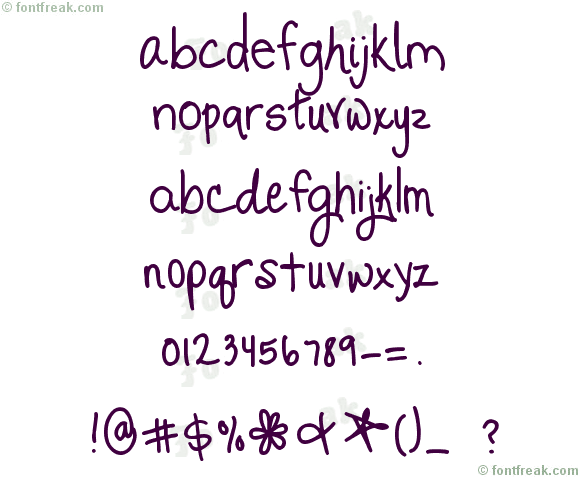
Promised Freedom is a charming handwritten font designed by Kimberly Geswein, categorized under script typefaces. This font is characterized by its playful strokes, combining a light and airy feel with a touch of elegance. The stroke weight is moderately varied, lending a dynamic quality that enhances its handwritten appearance. The characters exhibit natural spacing, making it easy to read while retaining a personal touch. This typeface is devoid of excessive decorative elements, allowing it to maintain clarity and legibility, which is crucial for effective communication.
Ideal for a range of creative projects, Promised Freedom shines in applications such as wedding invitations, where its romantic flair can add a personal touch to special occasions. It works beautifully for greeting cards, allowing users to convey heartfelt messages in a unique style. Additionally, its casual elegance makes it suitable for restaurant menus, creating an inviting atmosphere for diners. Graphic designers will find this font particularly appealing for branding projects, where a friendly and approachable image is desired. Content creators can also leverage Promised Freedom for social media graphics, enhancing engagement through its personable aesthetic.
The target audience for this font includes graphic designers, small business owners, and content creators who seek to add a distinctive flair to their projects. Whether crafting promotional materials or personal correspondence, users will find that Promised Freedom offers a warm, inviting character that resonates with audiences.
In conclusion, Promised Freedom stands out due to its balance of whimsy and readability, making it a versatile choice for various design needs. With its freeware license, it offers an accessible option for those looking to enhance their projects with a touch of handwritten charm. Don’t miss out on the opportunity to incorporate this delightful typeface; explore the Promised Freedom font free download today.